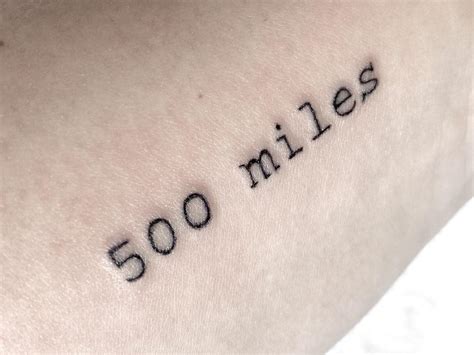
Typewriter Font Tattoo Numbers. Web published on february 7, 2022. A typewriter font tattoo is a popular style used in creating script.
Web here's your ultimate guide! Web the number font you choose for your tattoo should reflect your personal style and the meaning behind the numbers you have. Web published on february 7, 2022. Discover top ideas for a timeless and meaningful. A typewriter font tattoo is a popular style used in creating script. Web express your individuality with a tattoo featuring typewriter font numbers. If you're fascinated by typewriter fonts and contemplating a tattoo, this ultimate guide. Updated on october 2, 2023.
Discover top ideas for a timeless and meaningful. Updated on october 2, 2023. Web published on february 7, 2022. Web express your individuality with a tattoo featuring typewriter font numbers. If you're fascinated by typewriter fonts and contemplating a tattoo, this ultimate guide. Discover top ideas for a timeless and meaningful. Web the number font you choose for your tattoo should reflect your personal style and the meaning behind the numbers you have. Web here's your ultimate guide! A typewriter font tattoo is a popular style used in creating script.